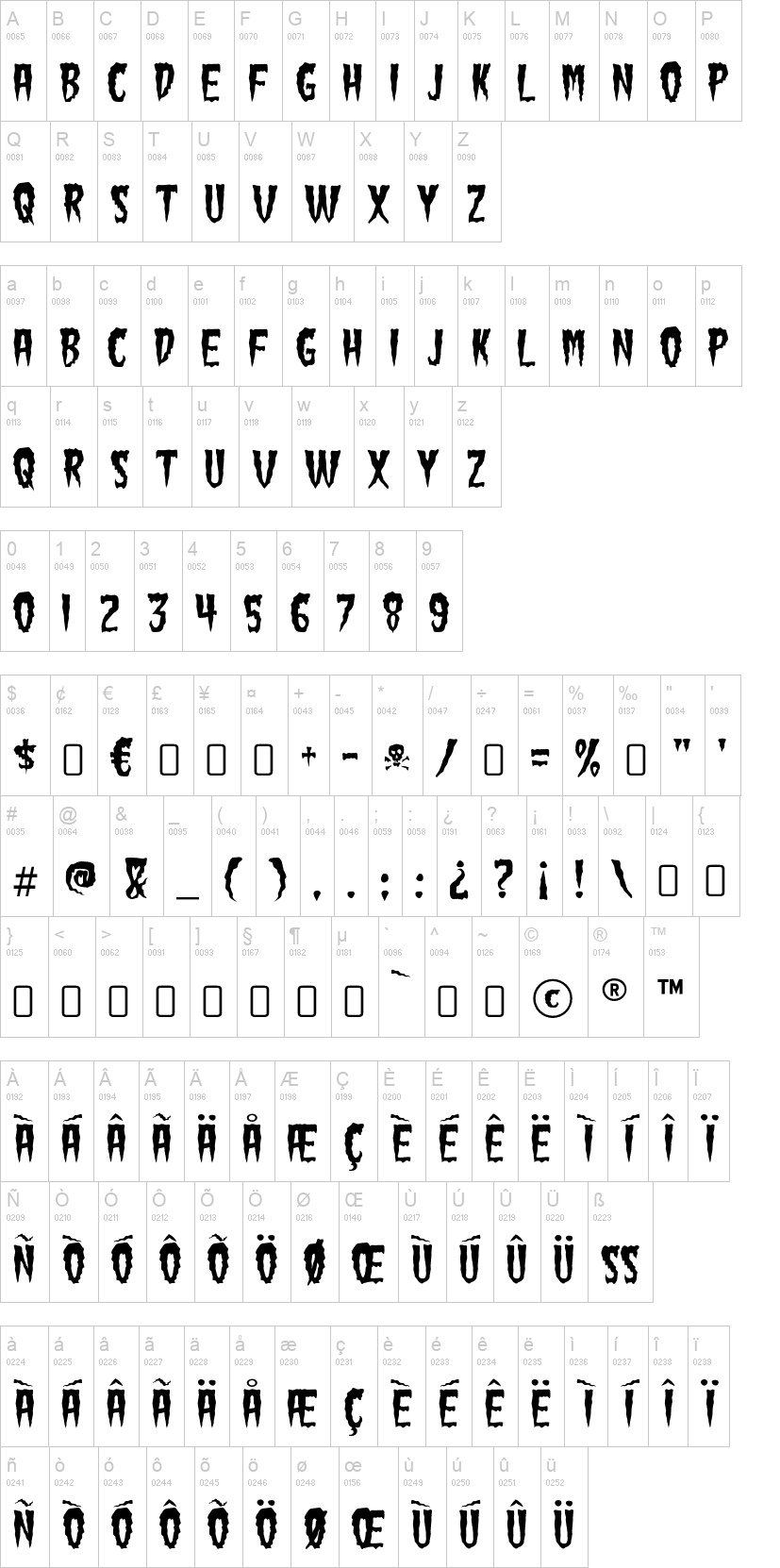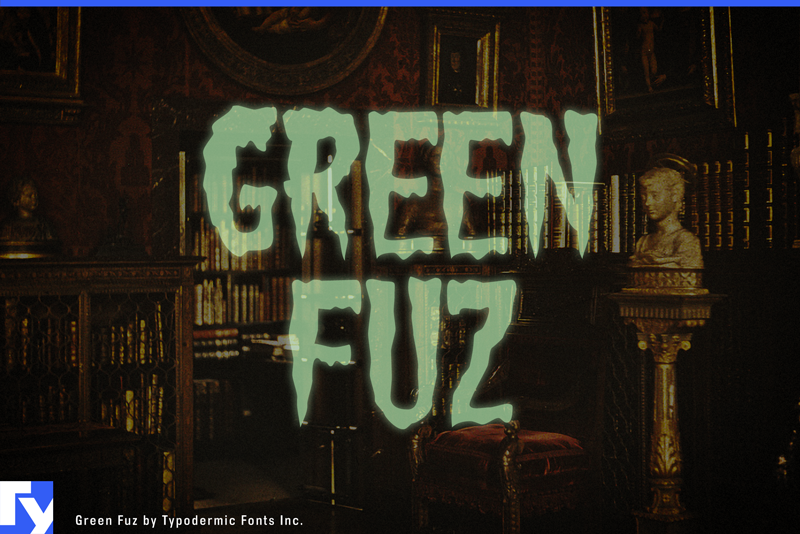
Note of the authorGreen Fuz is a gruesome typeface inspired by 1950s American horror comics. Your message will be delivered with bloodcurdling drips and ghastly wobbles. Some Latin-based European writing systems are supported, including the following languages. Afaan Oromo, Afar, Afrikaans, Albanian, Alsatian, Aymara, Basque, Bemba, Bikol, Breton, Cape Verdean, Creole, Catalan, Cebuano, Chamorro, Chavacano, Danish, Dawan, Dholuo, Dutch, English, Estonian, Faroese, Fijian, Filipino, Finnish, French, Frisian, Friulian, Galician, Genoese, German, Guadeloupean Creole, Haitian Creole, Hiligaynon, Icelandic, Ilocano, Indonesian, Irish, Italian, Jamaican, Kaqchikel, Kikongo, Kinyarwanda, Kirundi, Lombard, Low Saxon, Luxembourgish, Makhuwa, Malay, Ndebele, Neapolitan, Norwegian, Novial, Occitan, Papiamento, Piedmontese, Portuguese, Quechua, Rarotongan, Romansh, Sango, Saramaccan, Sardinian, Scottish Gaelic, Shona, Sicilian, Silesian, Slovak, Slovenian, Somali, Sotho, Spanish, Swahili, Swazi, Swedish, Tagalog, Tetum, Tshiluba, Tsonga, Tswana, Tumbuka, Uzbek (Latin), Venetian, Võro, Walloon, Waray-Waray, Wayuu, Xhosa, Yapese, Zapotec Zulu and Zuni.